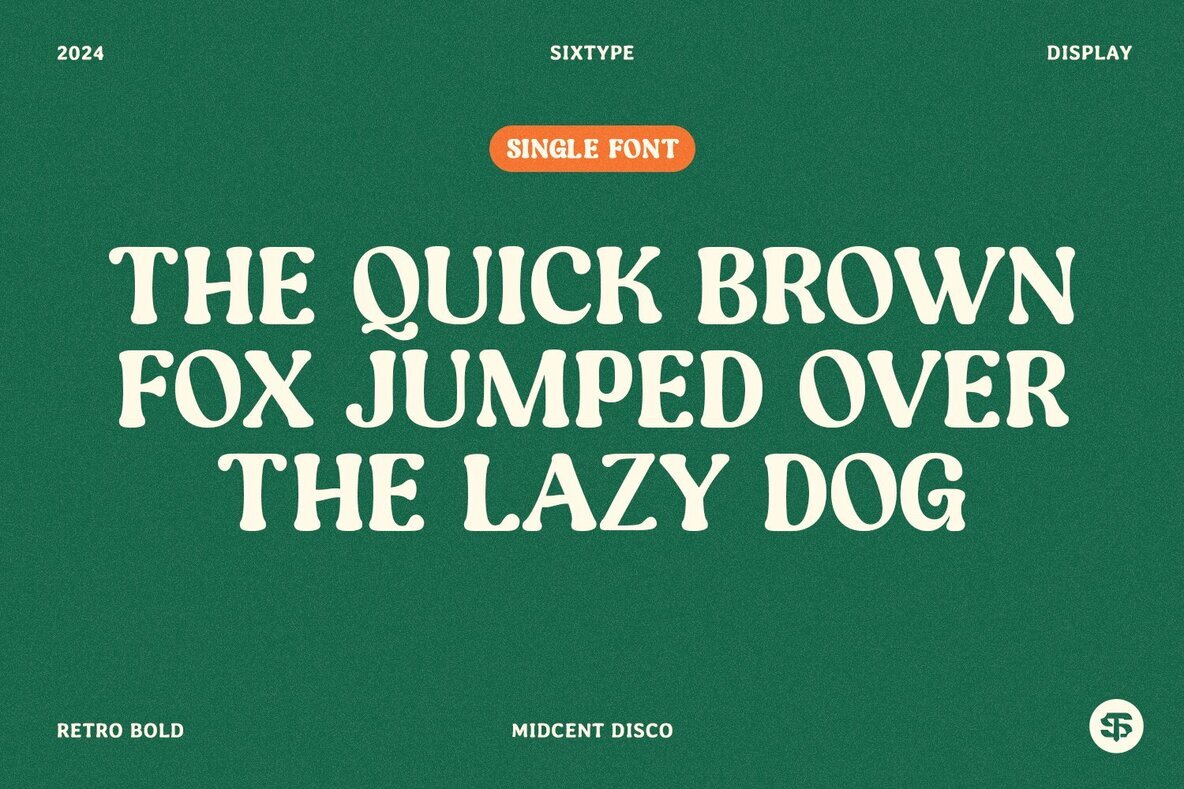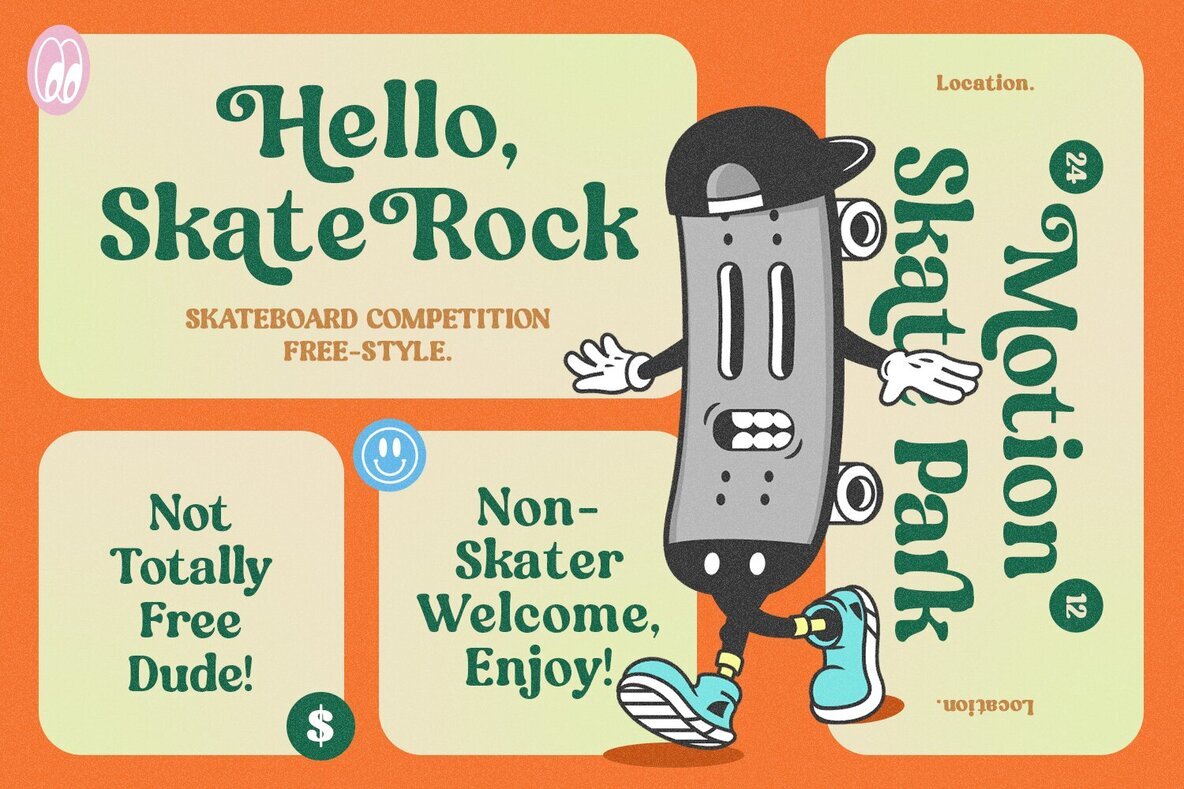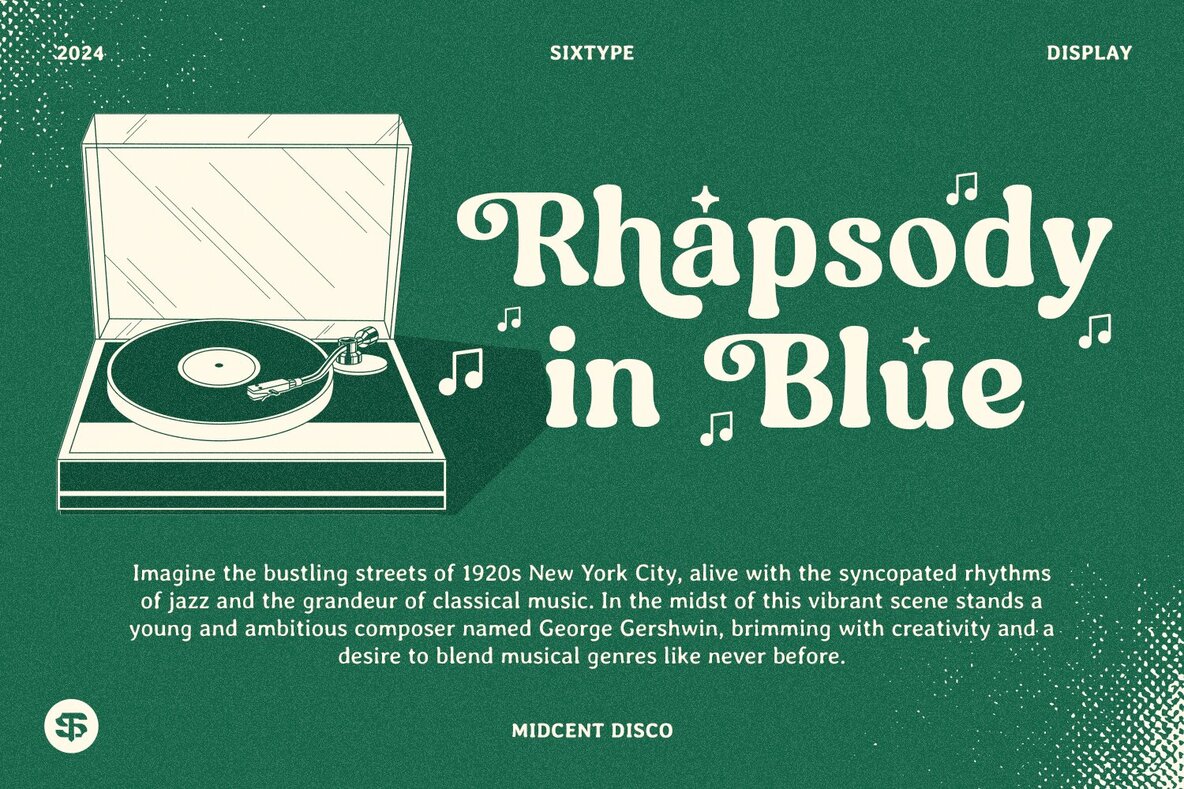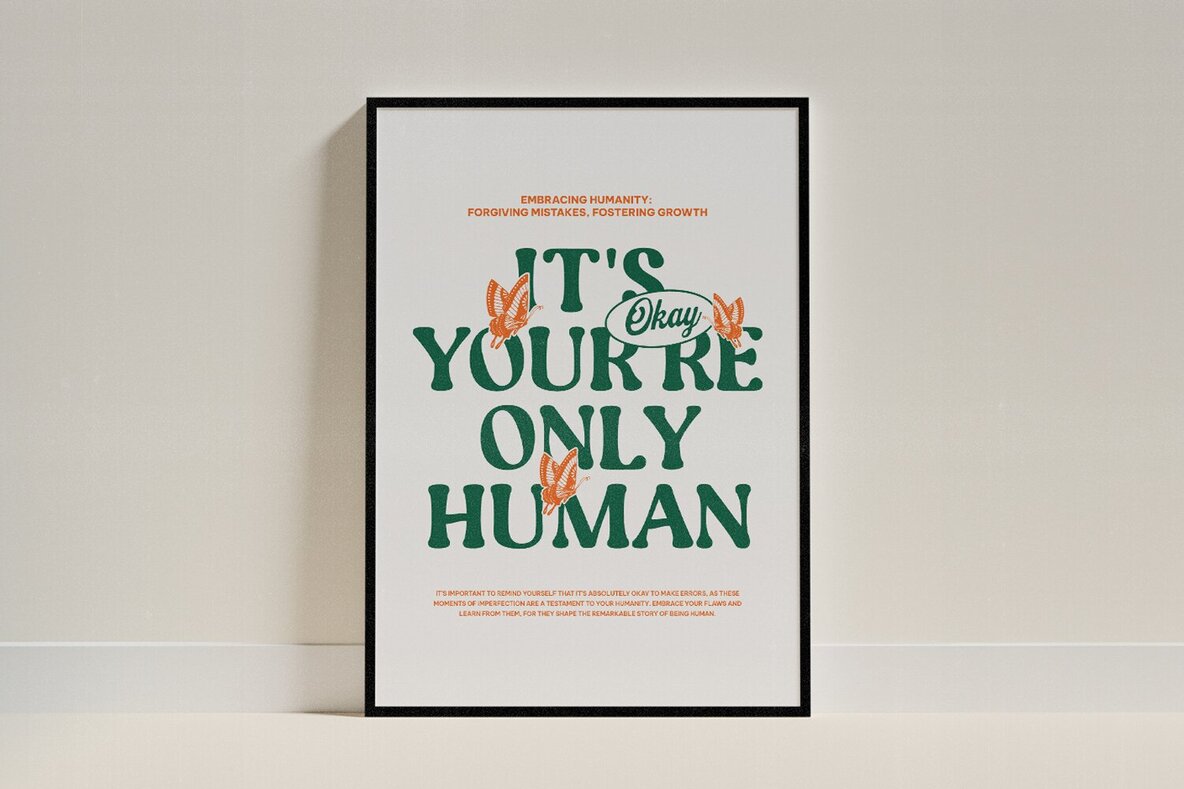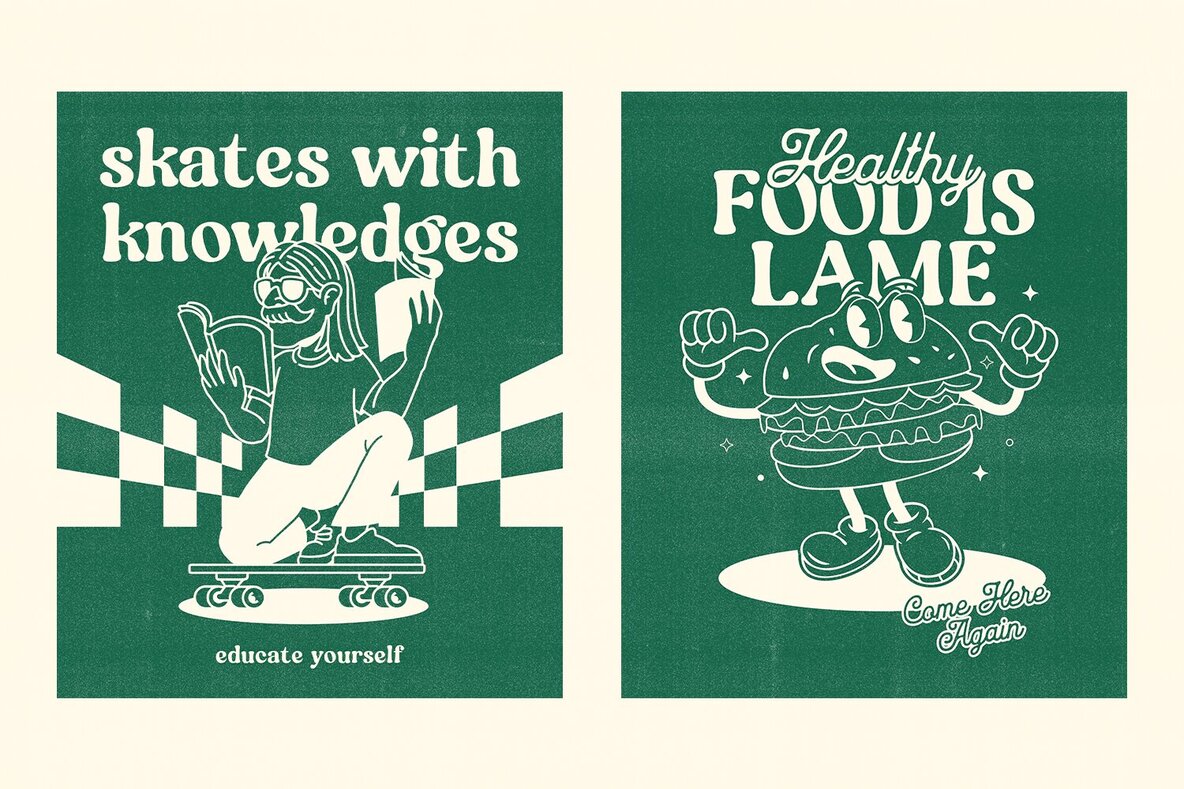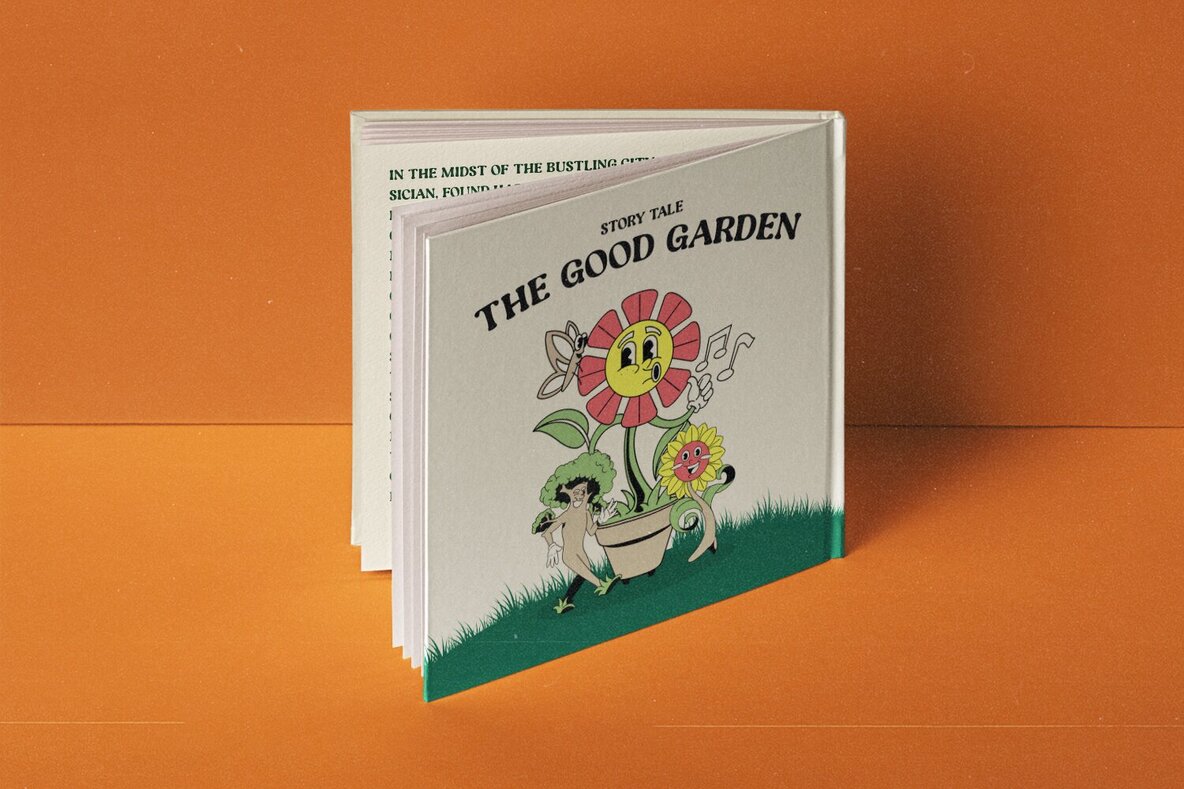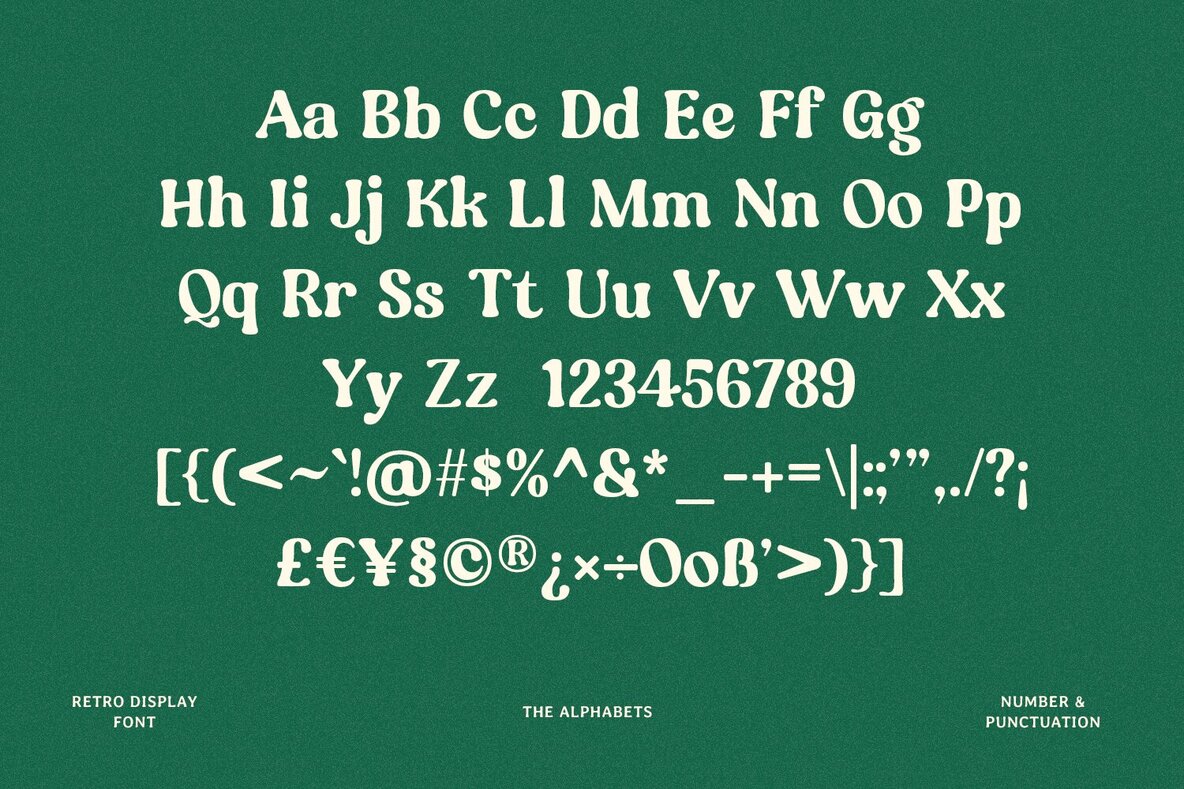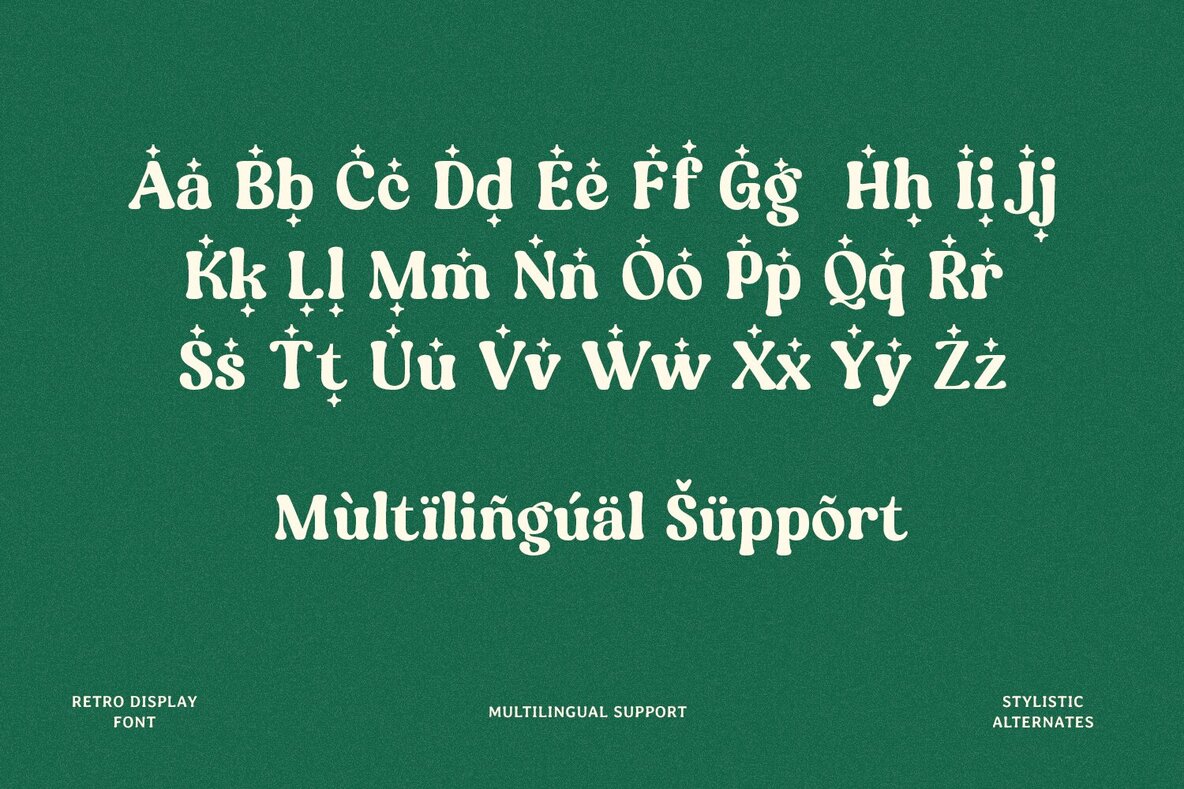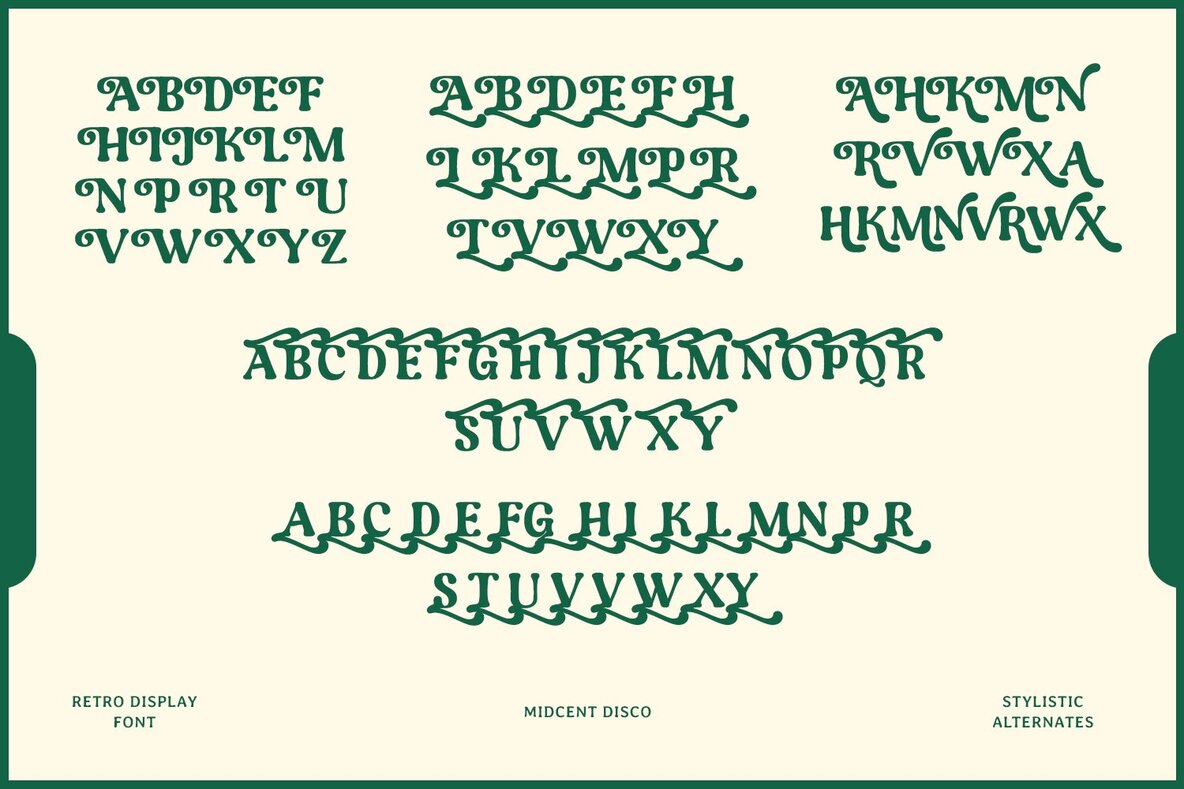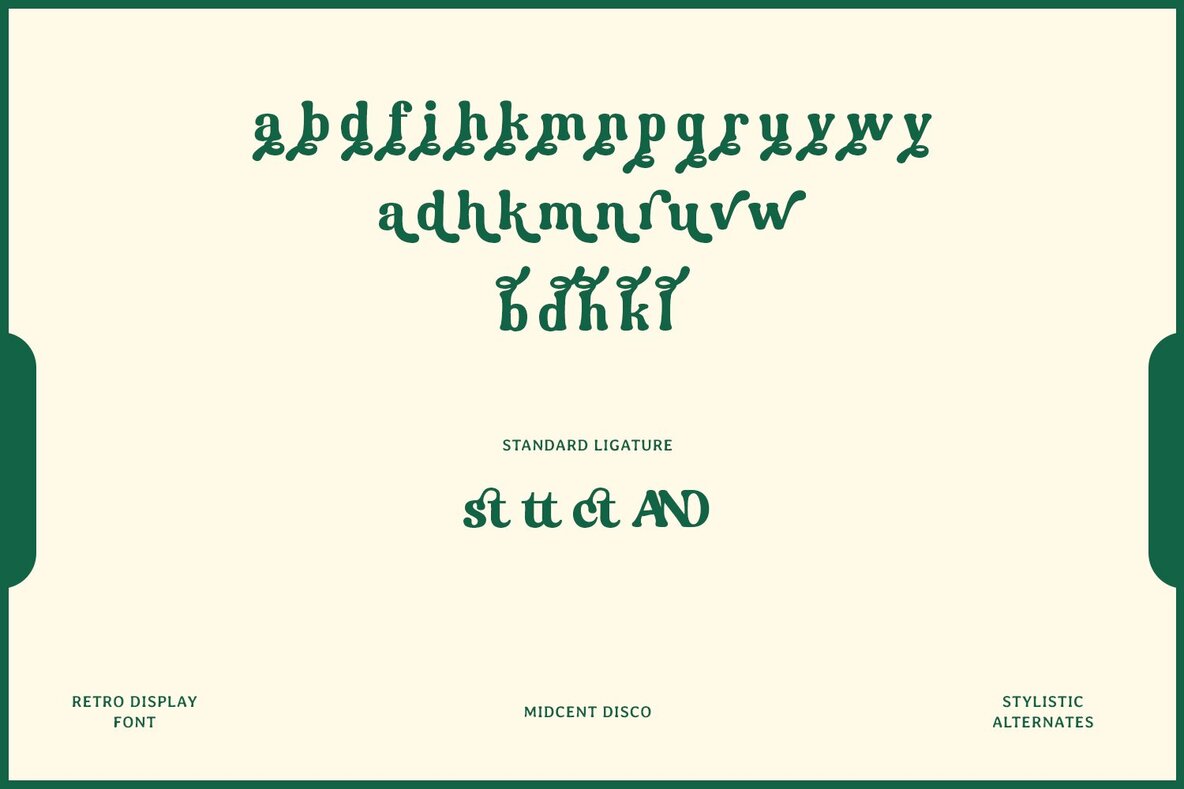
Midcent Disco Font
Midcent Disco Regular
Midcent Disco is a font that mixes vintage vibes with modern style. It's perfect for making cool posters, catchy logos, trendy websites, and attractive packaging. With its bold look and wide letters, it brings back the feel of the 1960s while still looking fresh today. Whether you're designing a logo or a webpage, Midcent Disco adds a touch of retro charm and timeless elegance to anything you create. File Includes: Note: Kindly be informed that the images and photographs within the model are for presentation purposes only and are not included in the download file. Thanks for your cooperation, and enjoy!